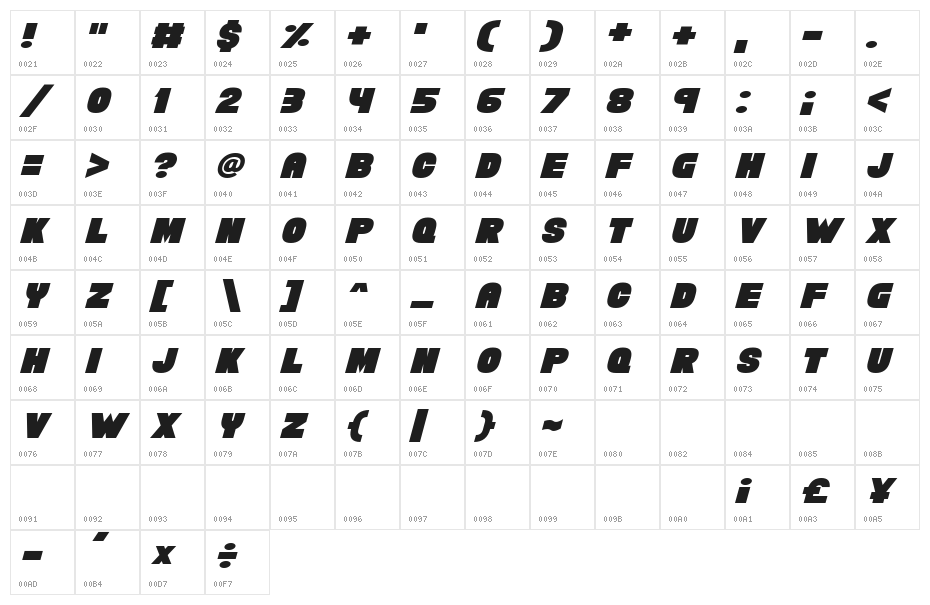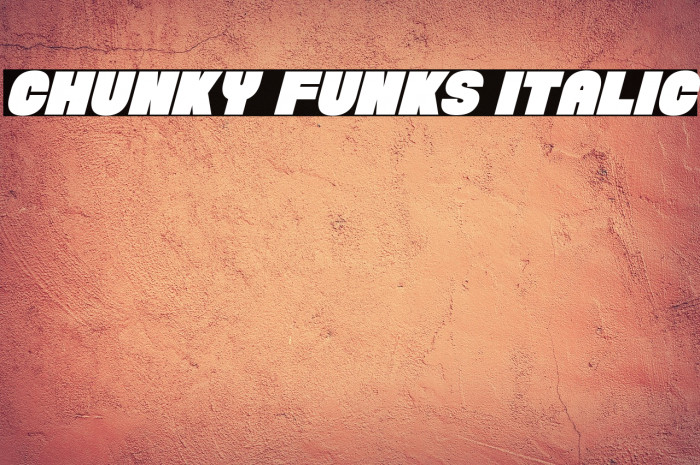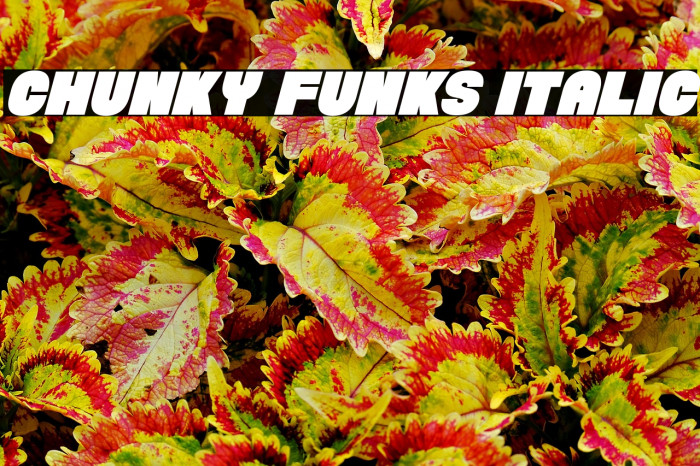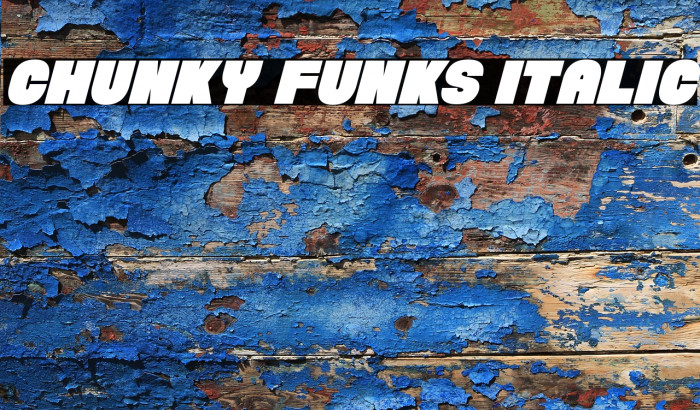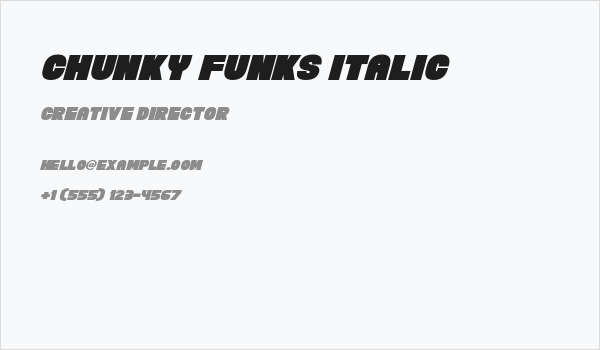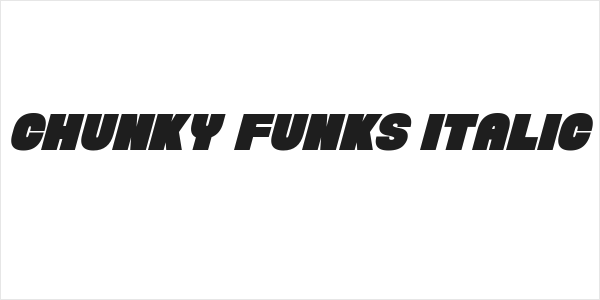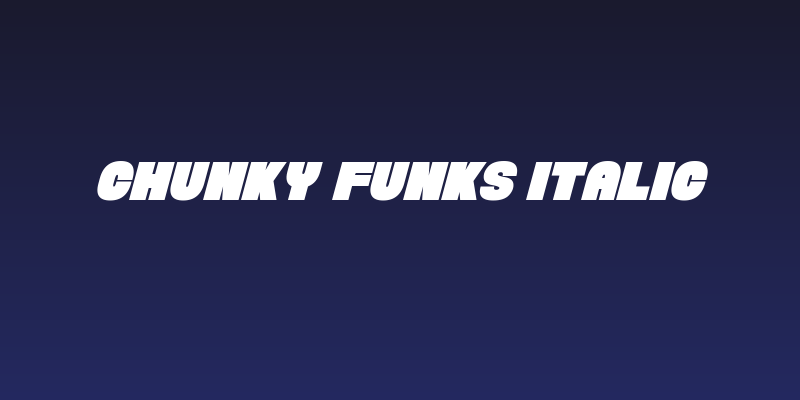
Chunky Funks Italic Font
Chunky Funks Italic Description
This font features a bold and dynamic style with a strong presence. The characters are thick and slightly slanted, giving an italicized appearance that adds a sense of movement and energy. The strokes are uniform in thickness, contributing to a cohesive and powerful look. The overall design is modern and eye-catching, making it suitable for attention-grabbing headlines and titles. The spacing between characters is tight, enhancing the compact and robust feel of the text. This font is ideal for projects that require a bold statement and a contemporary aesthetic.
| Proposed Projects | Ideal for headlines, posters, branding, and advertising materials. |